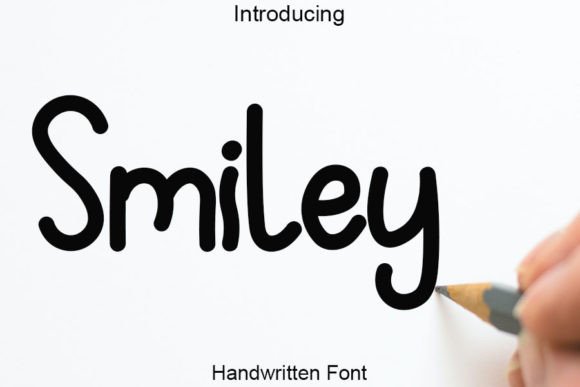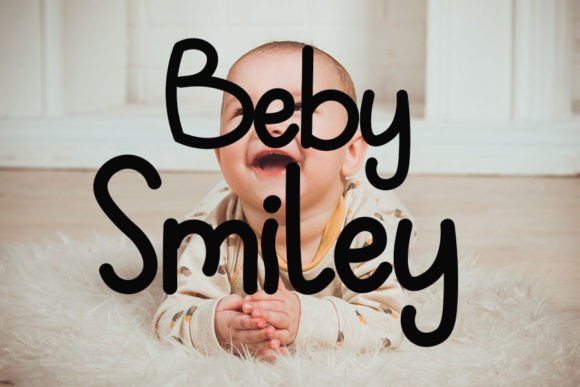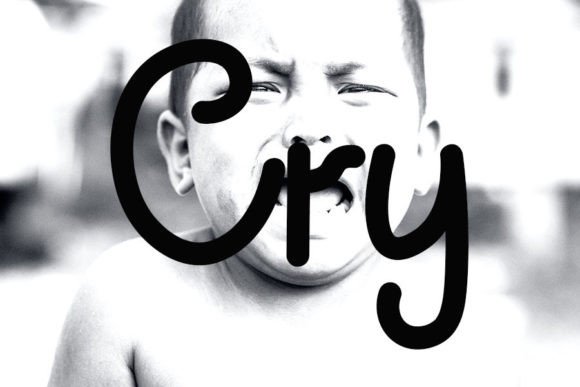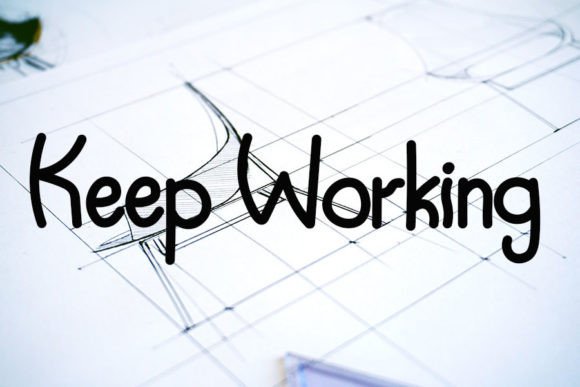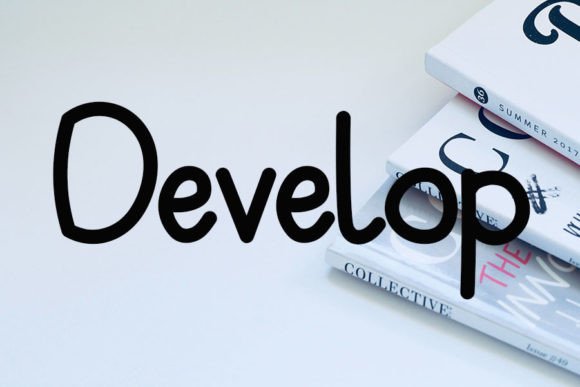
Smiley Font
“Smiley” is not just a font; it’s a neat and beautiful handwritten script that exudes elegance with each stroke. Its impeccable and well-crafted design makes it the perfect addition to your favorite projects, elevating them with an undeniable touch of sophistication. Fall in love with the remarkably distinct and timeless style of “Smiley” and harness its creative power to craft spectacular designs.
The neatness of “Smiley” is immediately evident, lending a sense of order and clarity to your text while maintaining a handwritten charm. Its beauty lies in the meticulous attention to detail, ensuring that each character flows seamlessly into the next. This font is a visual treat, capturing the eye with its elegant simplicity.
The handwritten elegance of “Smiley” is not only visually appealing but also versatile. Whether you’re working on invitations, branding materials, or any creative project, this font effortlessly adapts to different design contexts, enhancing the overall aesthetic. Its timeless style ensures that your designs won’t just be on-trend; they’ll be enduring.
Immerse yourself in the distinctive allure of “Smiley,” and you’ll discover a font that goes beyond the ordinary. Its timeless style gives your projects a classic and refined quality that stands out in a crowd. As you incorporate “Smiley” into your designs, you’ll find it to be a source of inspiration, turning your ideas into visually spectacular creations.
Envision “Smiley” gracing the pages of a beautifully crafted wedding invitation, adding a touch of sophistication to the celebration. Picture it as the signature font for a premium brand, communicating a sense of elegance and distinction. With “Smiley,” your designs become a canvas for timeless beauty.
In conclusion, “Smiley” is more than just a font; it’s a design asset that brings a neat and beautiful handwritten touch to your creative projects. Its distinct and timeless style invites you to create designs that stand the test of time. Fall in love with “Smiley” and let its elegance enhance the visual appeal of your creations, making them truly spectacular.